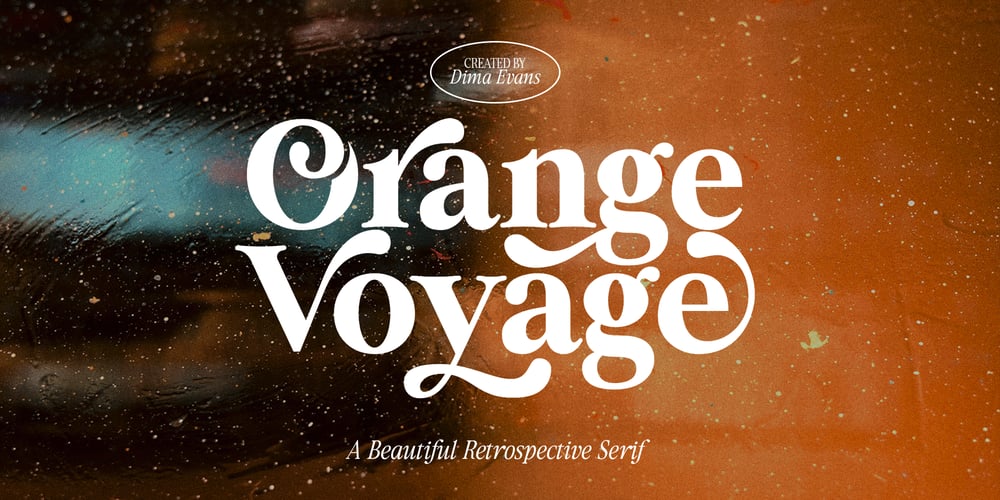
Orange Voyage Font Family was designed by Dmitrii Chirkov and published by Supfonts. Orange Voyage contains 2 styles and family package options. Orange Voyage is a modern serif family with vintage charm, fashionable appearance with a touch of retroQuick access – using the built-in OPEN TYPE functions. Just add “-” or “_” to the letter and instantly get an alternative. This feature works in most applicationsFont is an open type with clean shapes and precise kerning. It includes ligatures and alternationsLanguage support: All European languagesDon’t forget to subscribe so you don’t miss out on the new awesome fontsDima